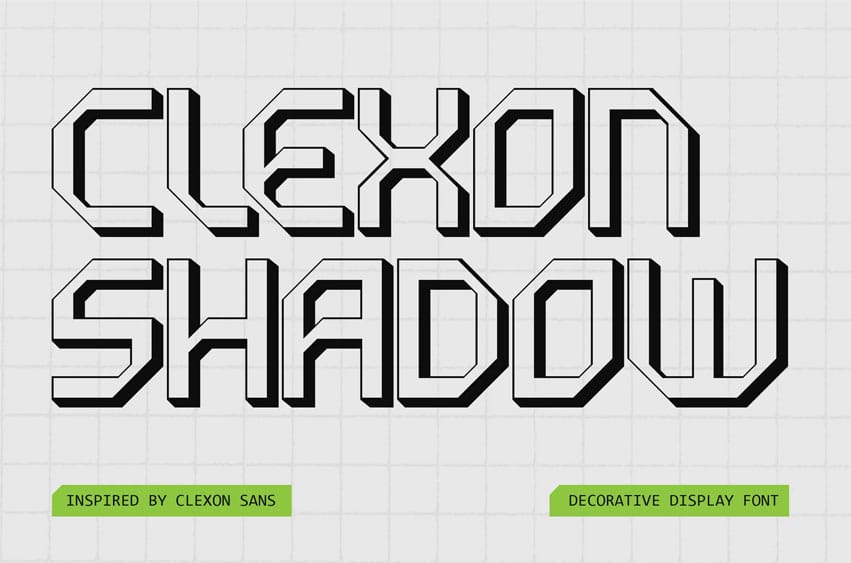
Clexon Shadow Font is a version that takes the inherent appeal of its retro-modern design and enhances it significantly. It achieves this by incorporating a subtle shadow effect, meticulously applied to emphasize each and every one of its crisp, clean lines and elegantly flowing curves. This carefully considered interplay of light and shadow generates a layered impression, resulting in a heightened, three-dimensional feel that immediately captures the viewer’s attention and holds it. The eye is naturally drawn to the enhanced contours and the illusion of depth.
By skillfully blending the best of vintage design influence with carefully considered contemporary nuances, the shadow treatment bestows upon Clexon an atmosphere of sophisticated dynamism and refined energy. The addition of this depth not only serves to enrich its overall character and visual interest but also positions it as an ideal choice for impactful branding initiatives and creatively compelling headlines that need to stand out from the crowd. The shadow detail gives it a greater presence, ensuring that messages are delivered with increased power and memorability. It’s a design that commands attention and leaves a lasting impression.